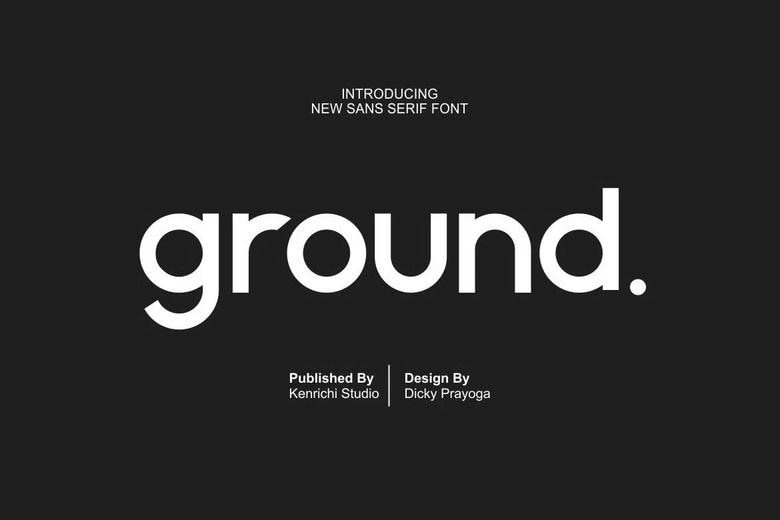
Ground Font
Ground is a contemporary and sans serif typeface. Ideal in professional and branding purposes of a product. The font can be used in any branding work such as quotes, logo, poster, banding, letter, invitation, stationery, etc. and is designed to be a versatile and flexible typeface that could be used on a variety of mediums and situations.
Ground Sans Serif Font